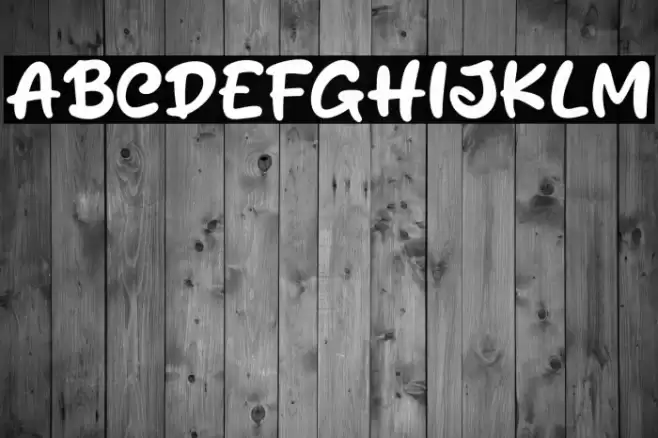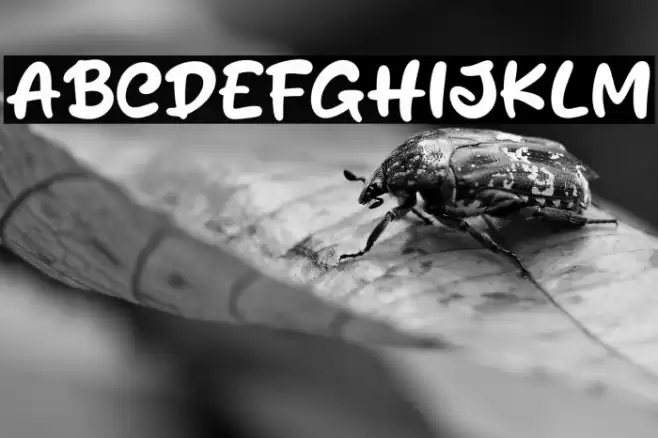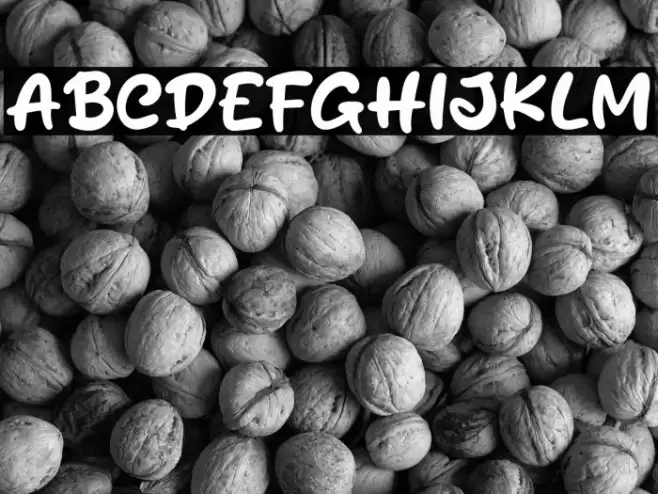
Jhal Muri Font
Jhal Muri Description
This playful and bold font features a handwritten style with rounded edges and a casual appearance. The characters are thick and slightly irregular, giving them a friendly and approachable look. The uppercase and lowercase letters maintain a consistent style, with the lowercase being slightly more rounded. Numbers and special characters follow the same design, ensuring uniformity across all elements. The font's informal and lively nature makes it suitable for creative and fun projects. Its bold strokes and rounded forms make it stand out, while the consistent spacing between characters ensures readability.
| Proposed Projects | Ideal for children's books, greeting cards, playful branding, and social media graphics. |